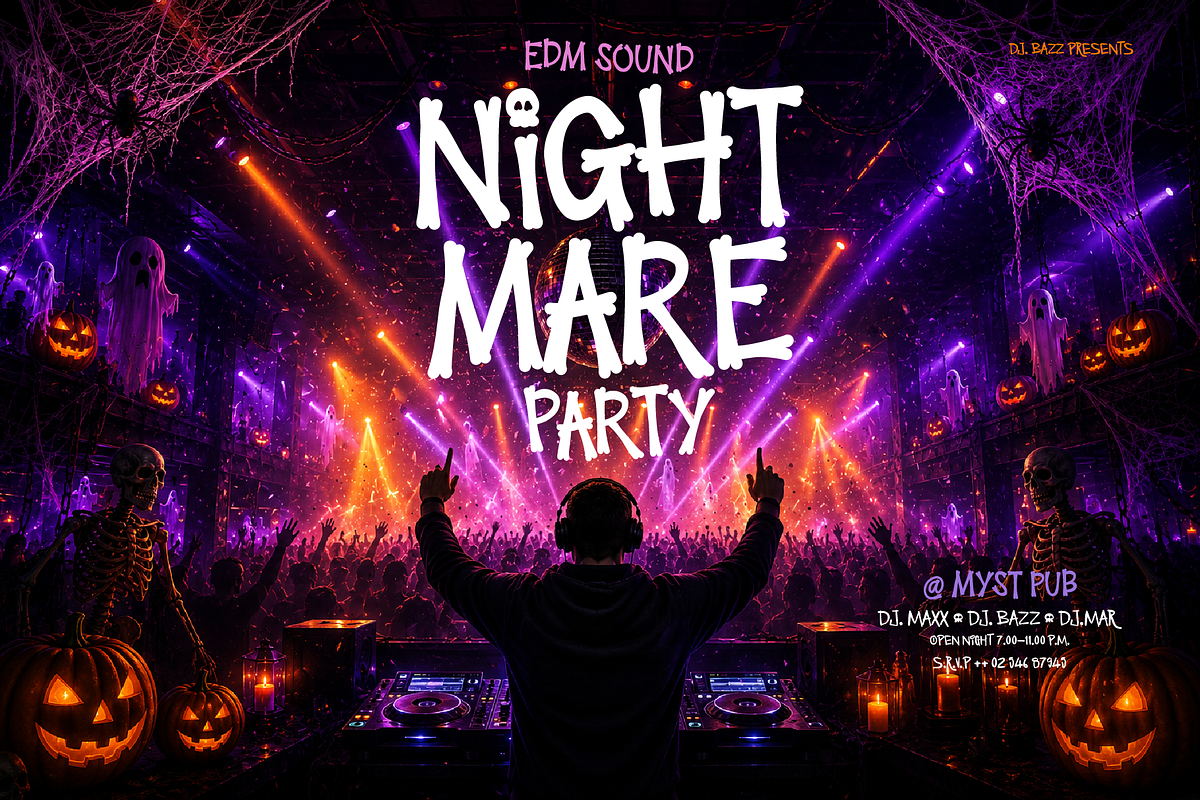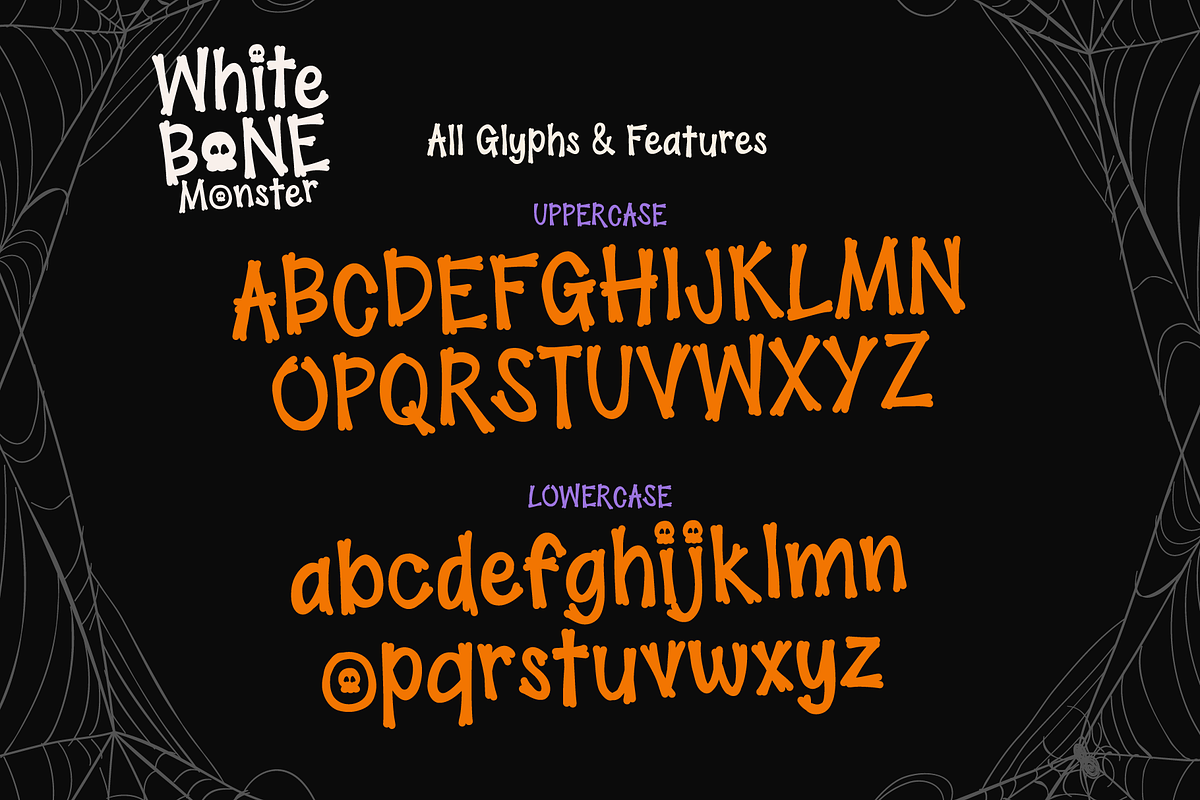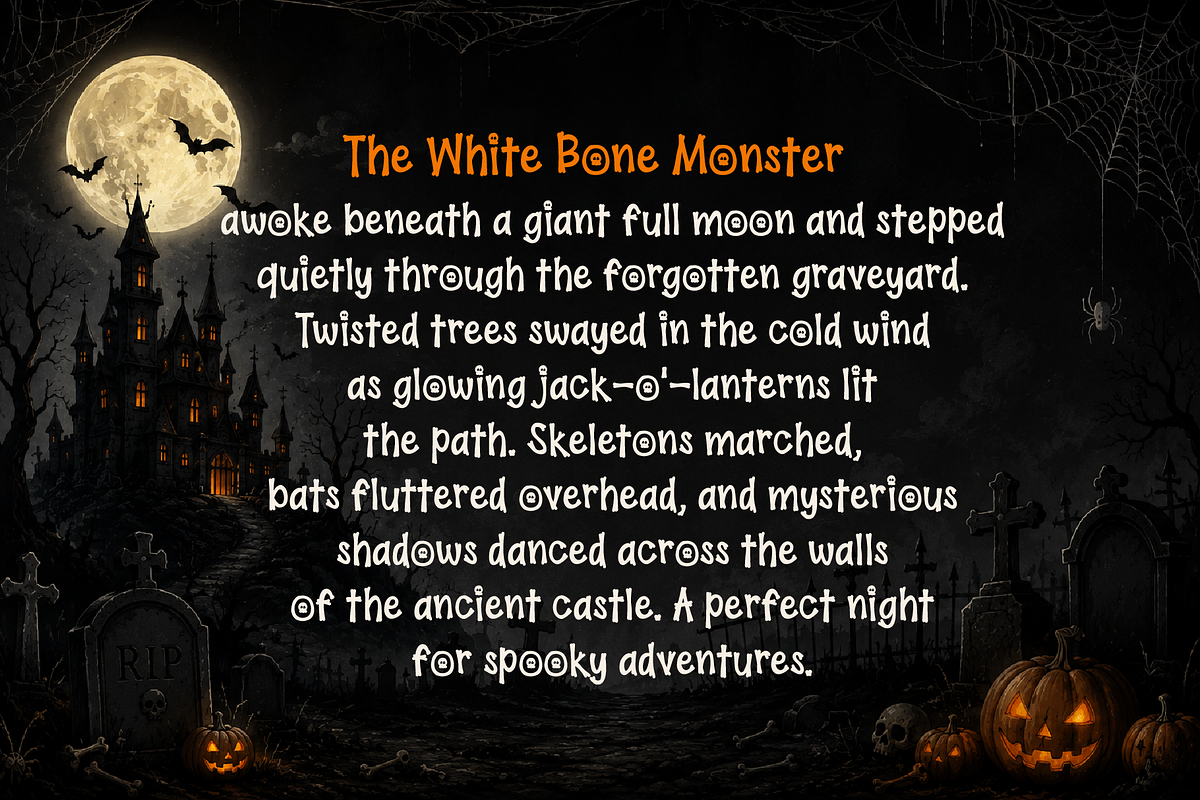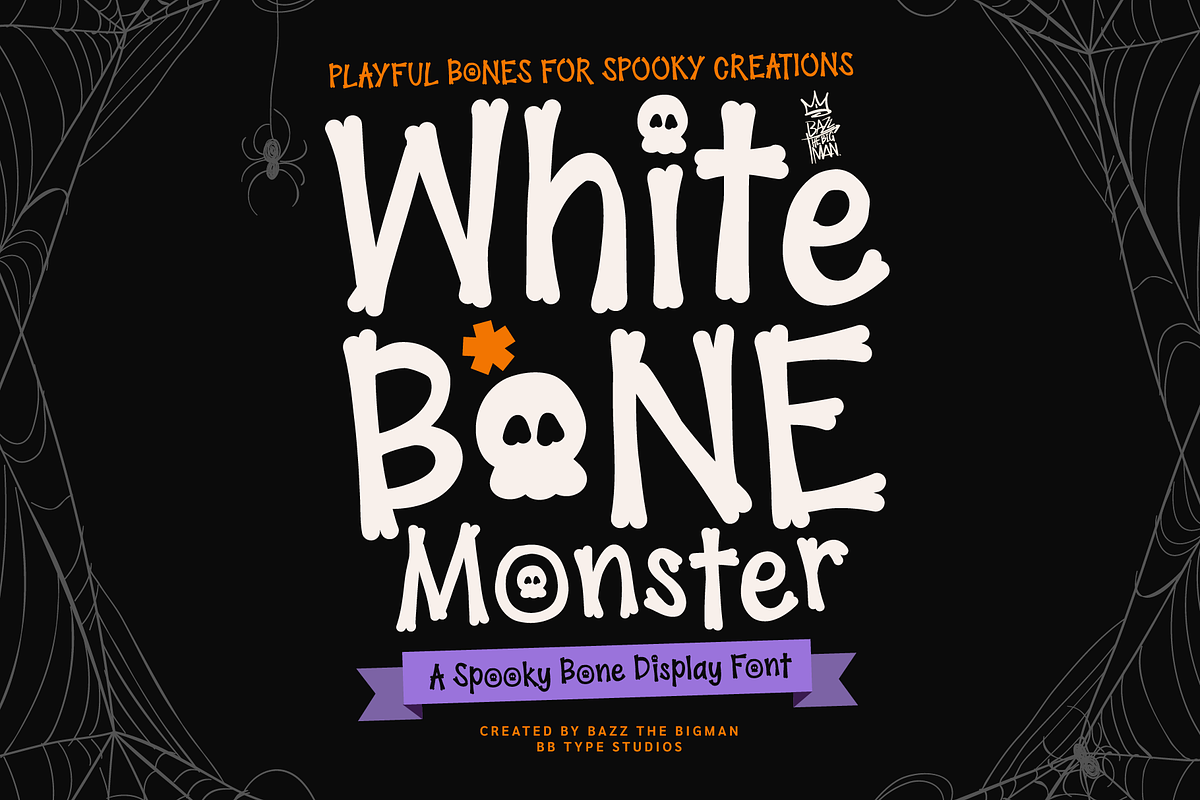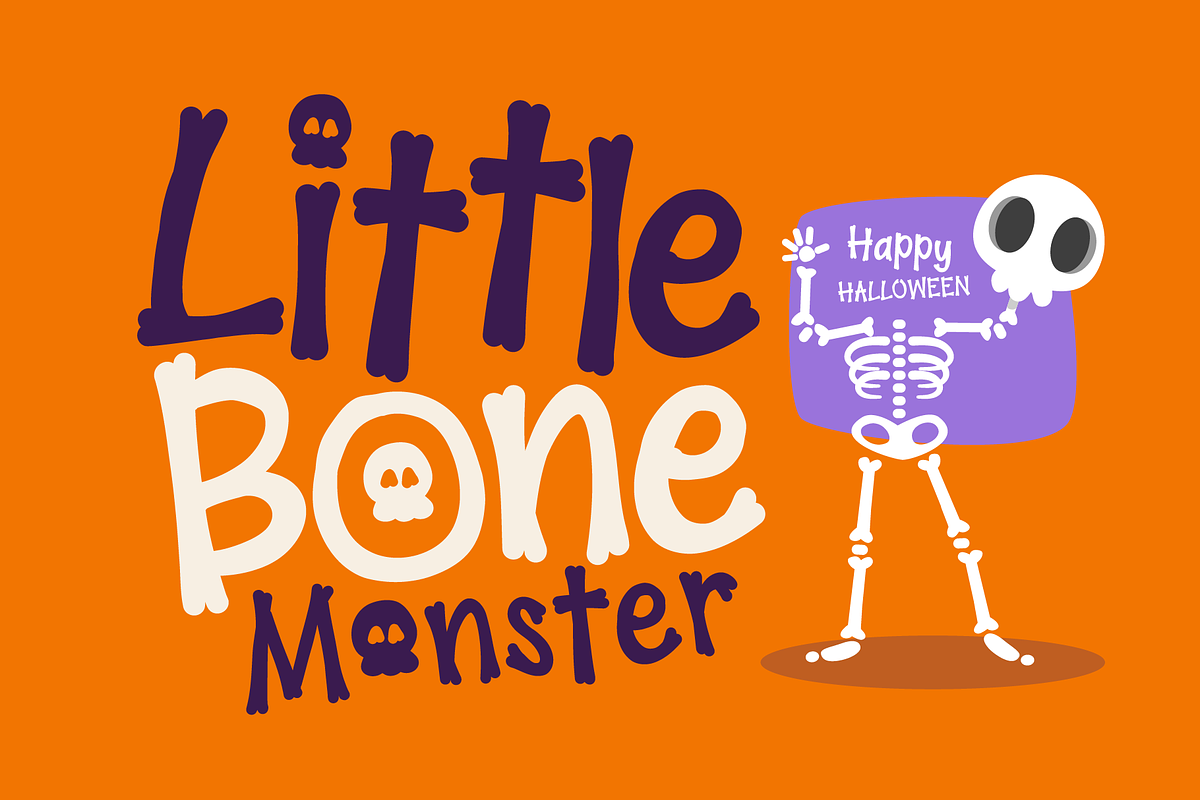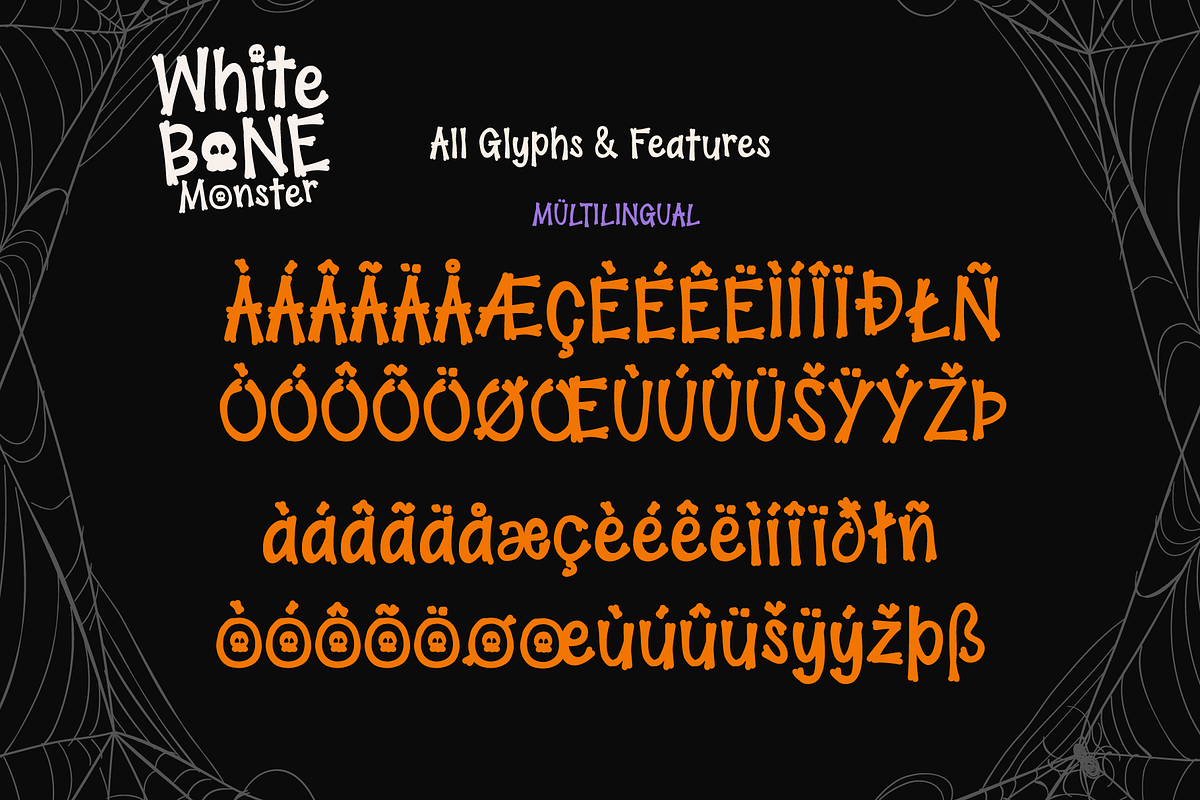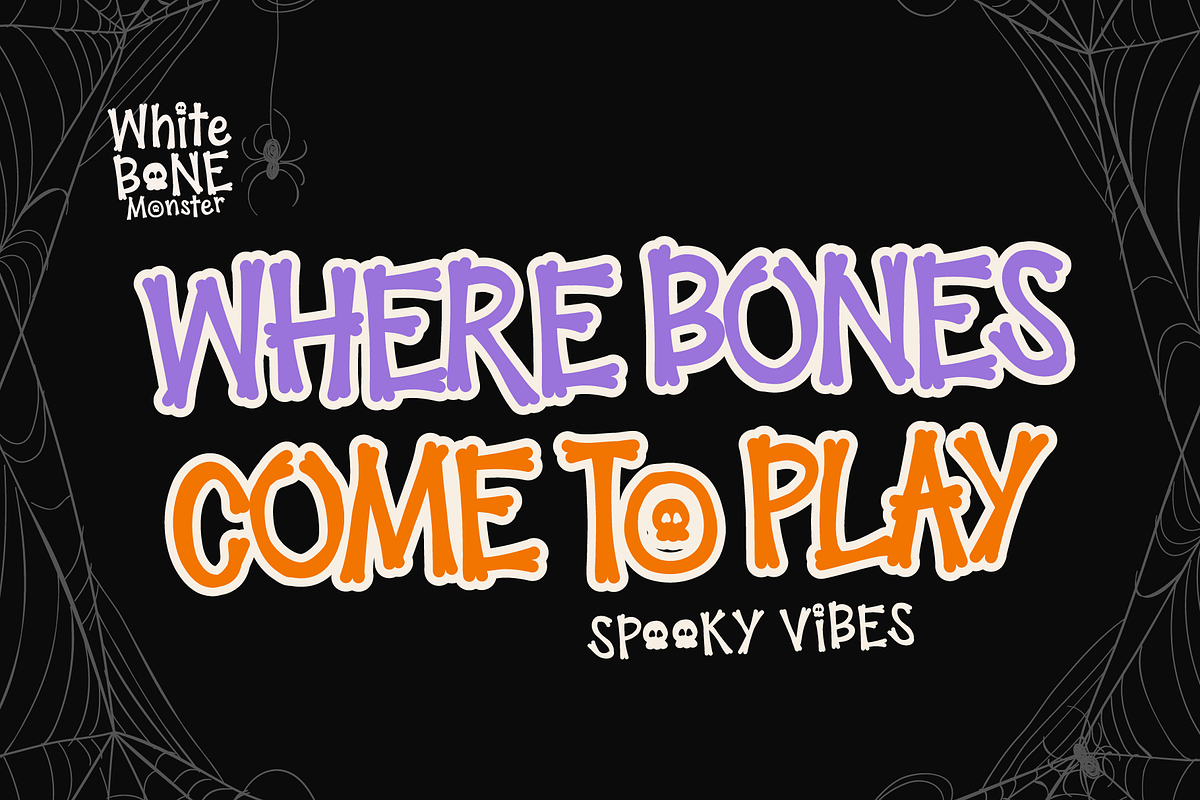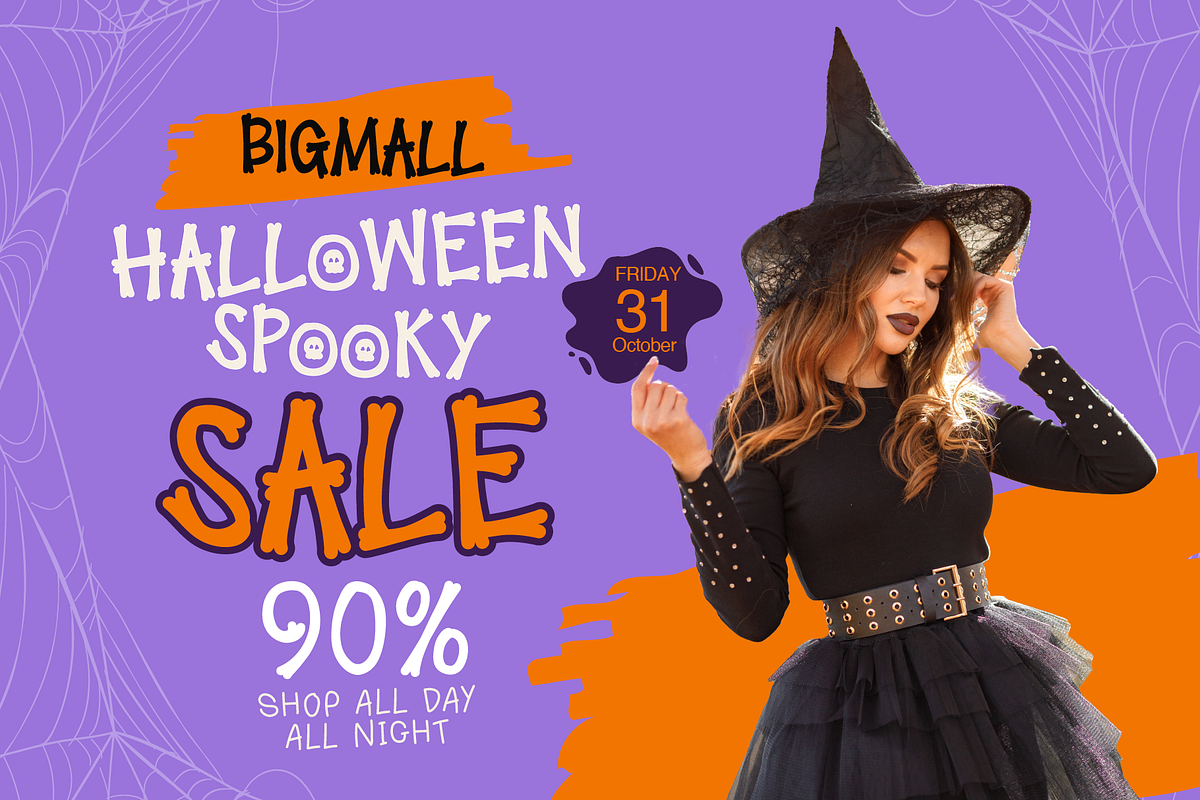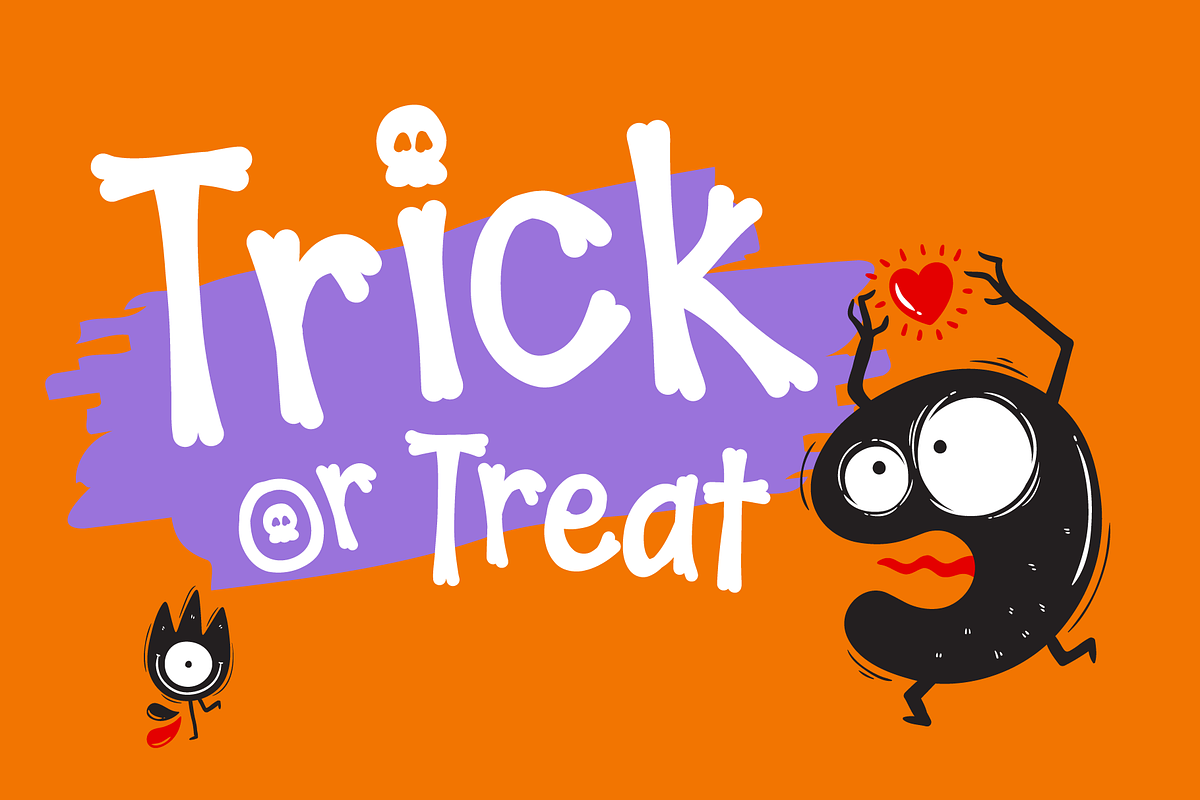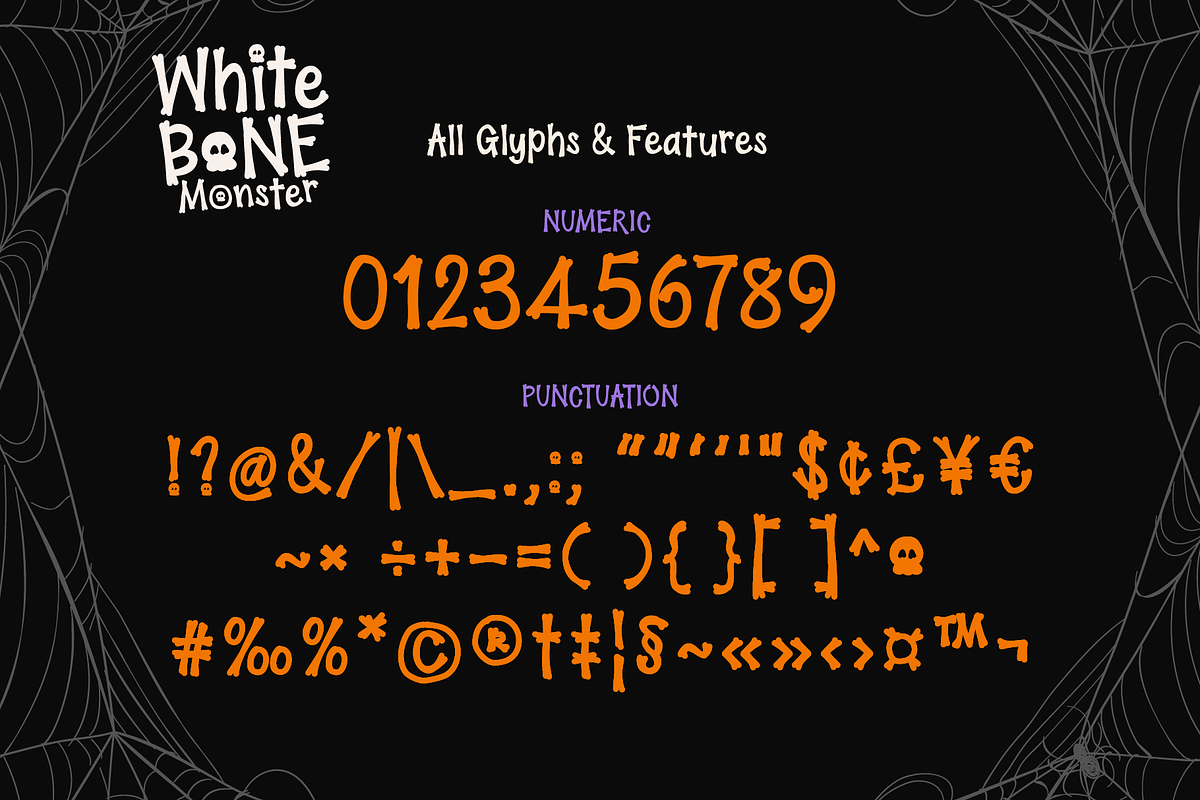
White Bone Monster
Unleash the mystique of eerie delights with Whitebone Monster, a beguiling Halloween-centric display font. Born from the bewitching allure of phantom bones, amiable ghouls, and thrilling nocturnal escapades, this typeface weaves an enchanting Halloween narrative. It’s imbued with thoughtful handcrafted elements, irregularly shaped bone-derived strokes, and an invitingly chilling horror aesthetic. Ideally designed for Halloween shindig invites, notice boards, decal stickers, clothing, promotional goods, digital artistry, DIY Cricut projects, card greetings, packaging demands, and occasional branding ventures. Whitebone Monster’s unparalleled bone-esque typography etches an unforgettable Halloween ambience, without compromising readability across print or digital platforms. Whether it’s for bone-chilling decor, Halloween handouts, festive attire, or themed party stationery, Whitebone Monster injects a dash of joy, character, and larger-than-life charisma into every undertaking.
Uppercase Letters
Lowercase Letters
Multilingual Characters